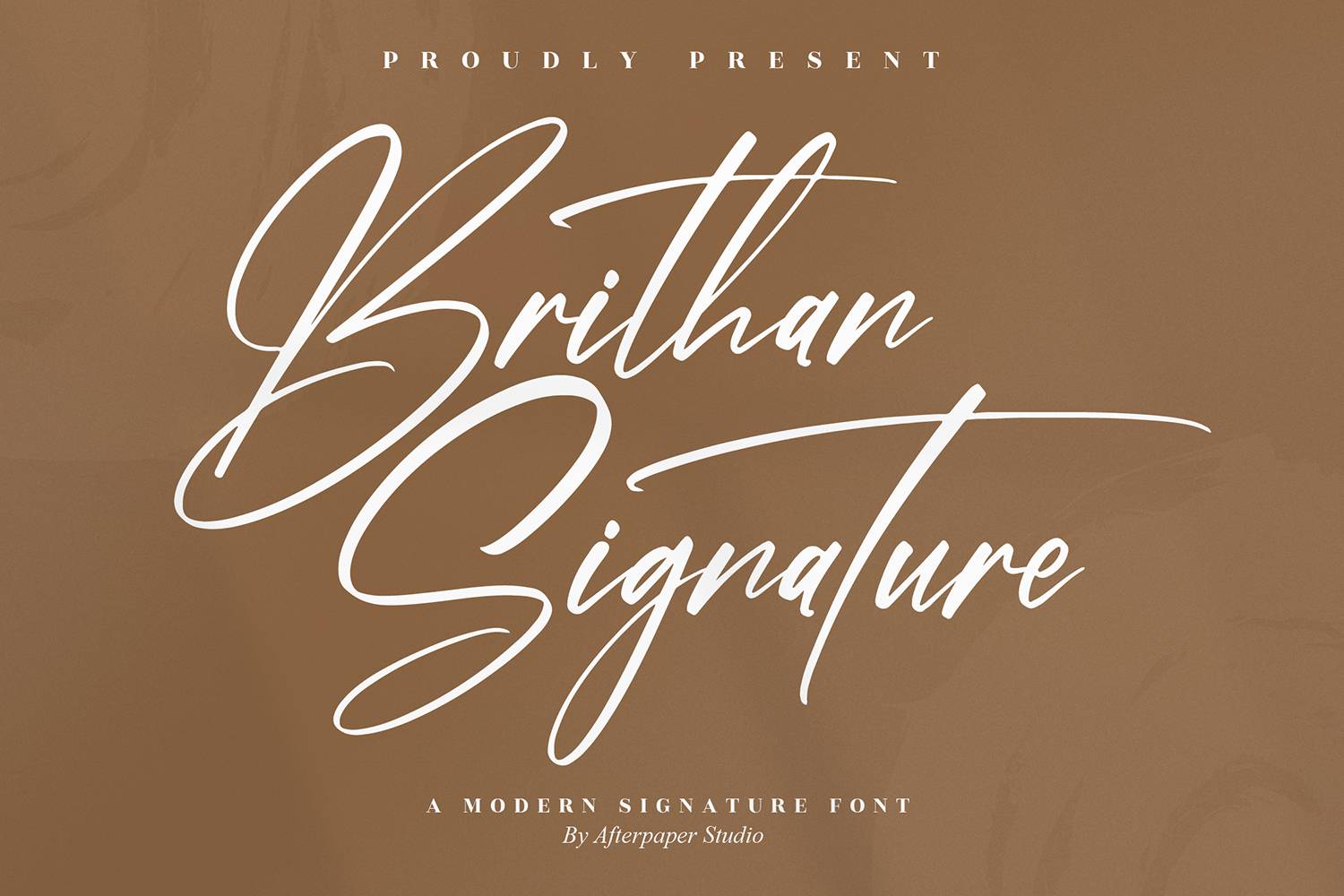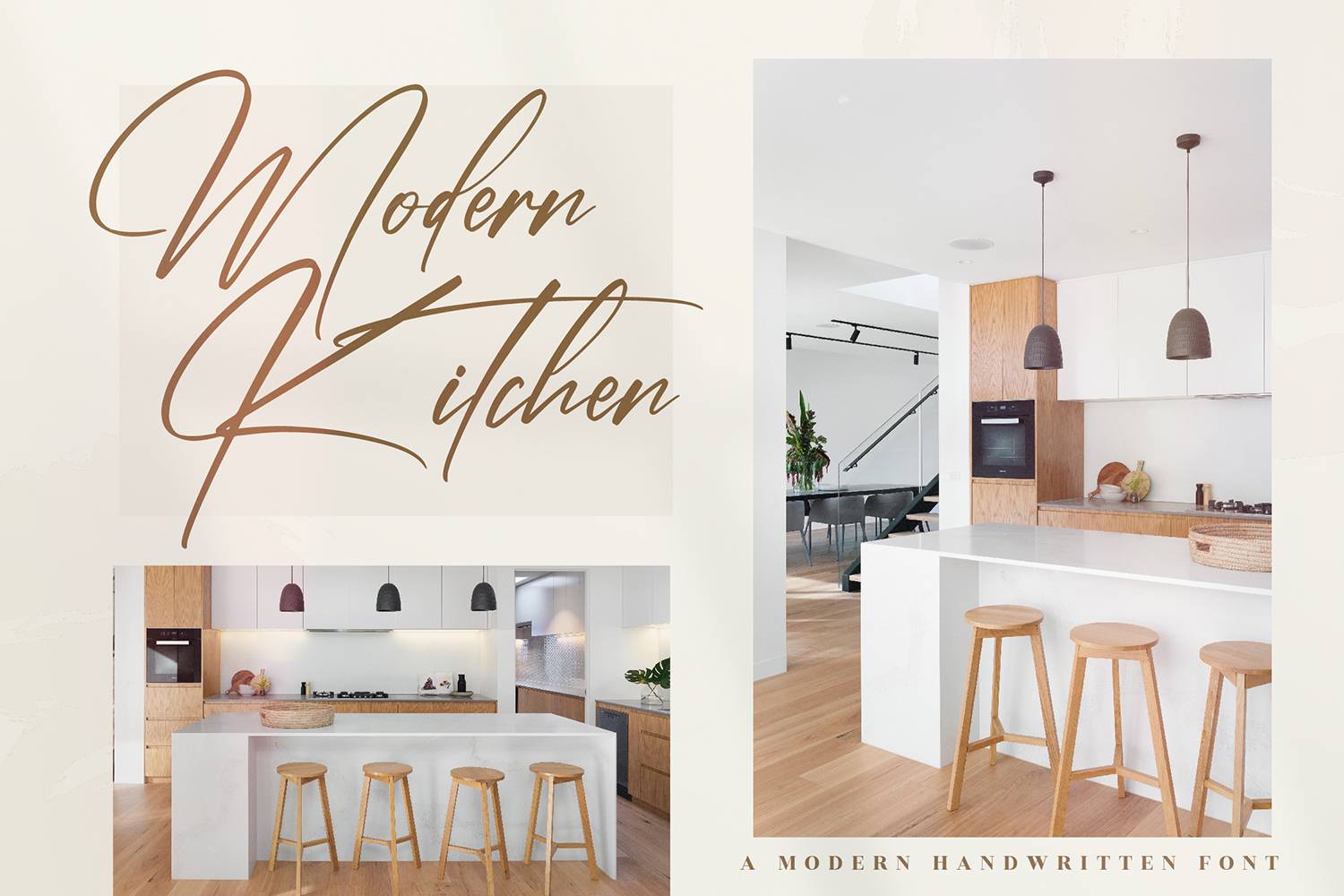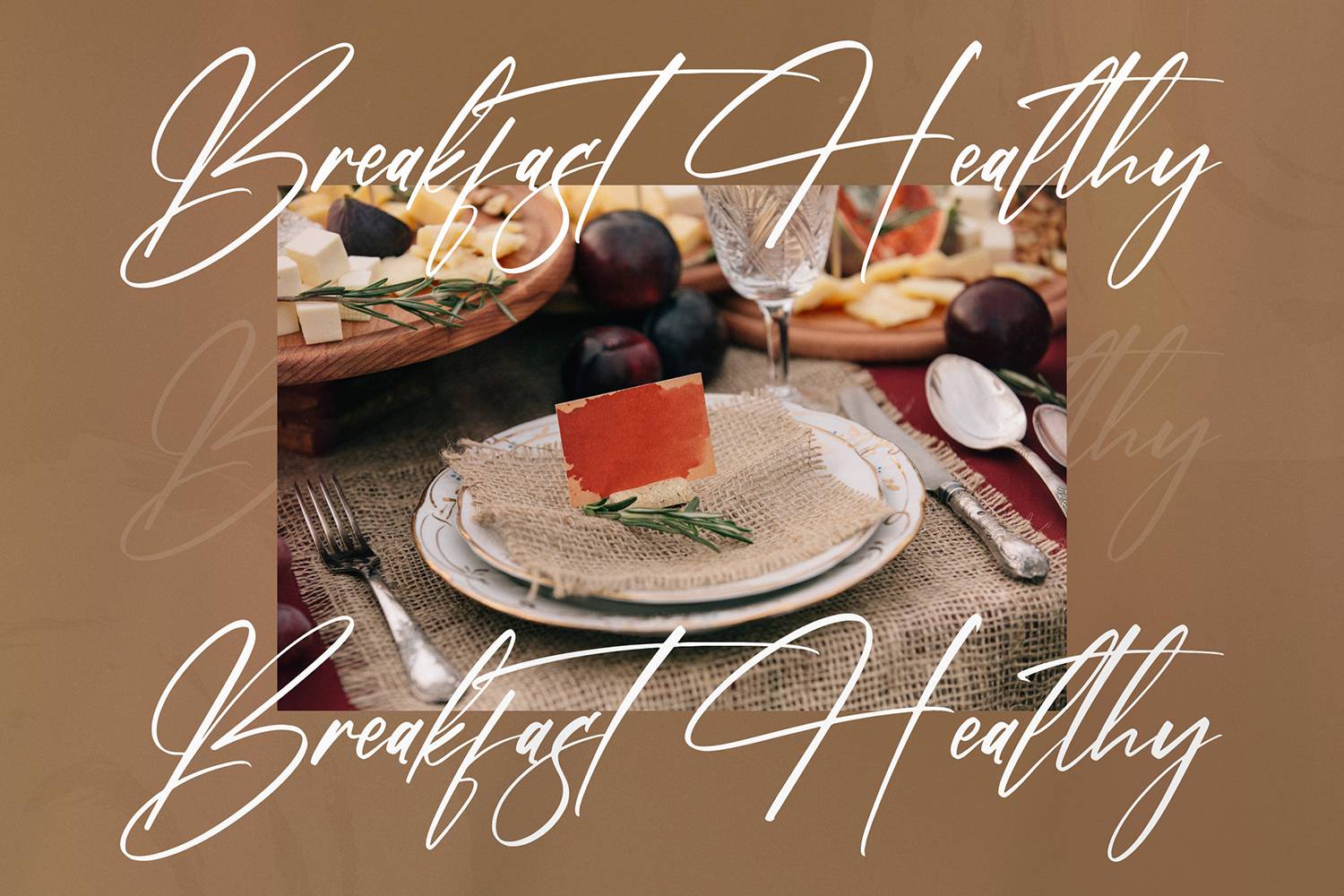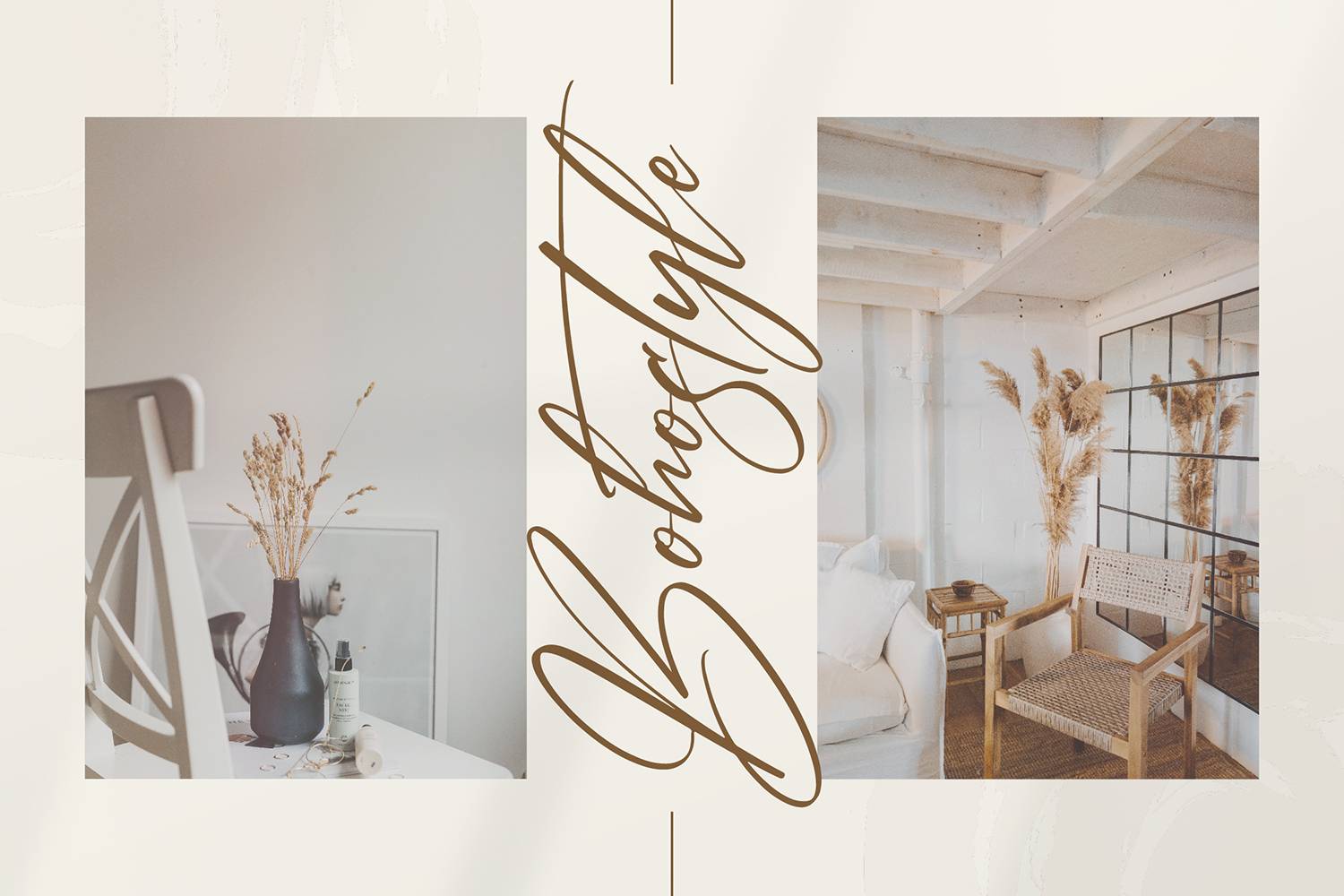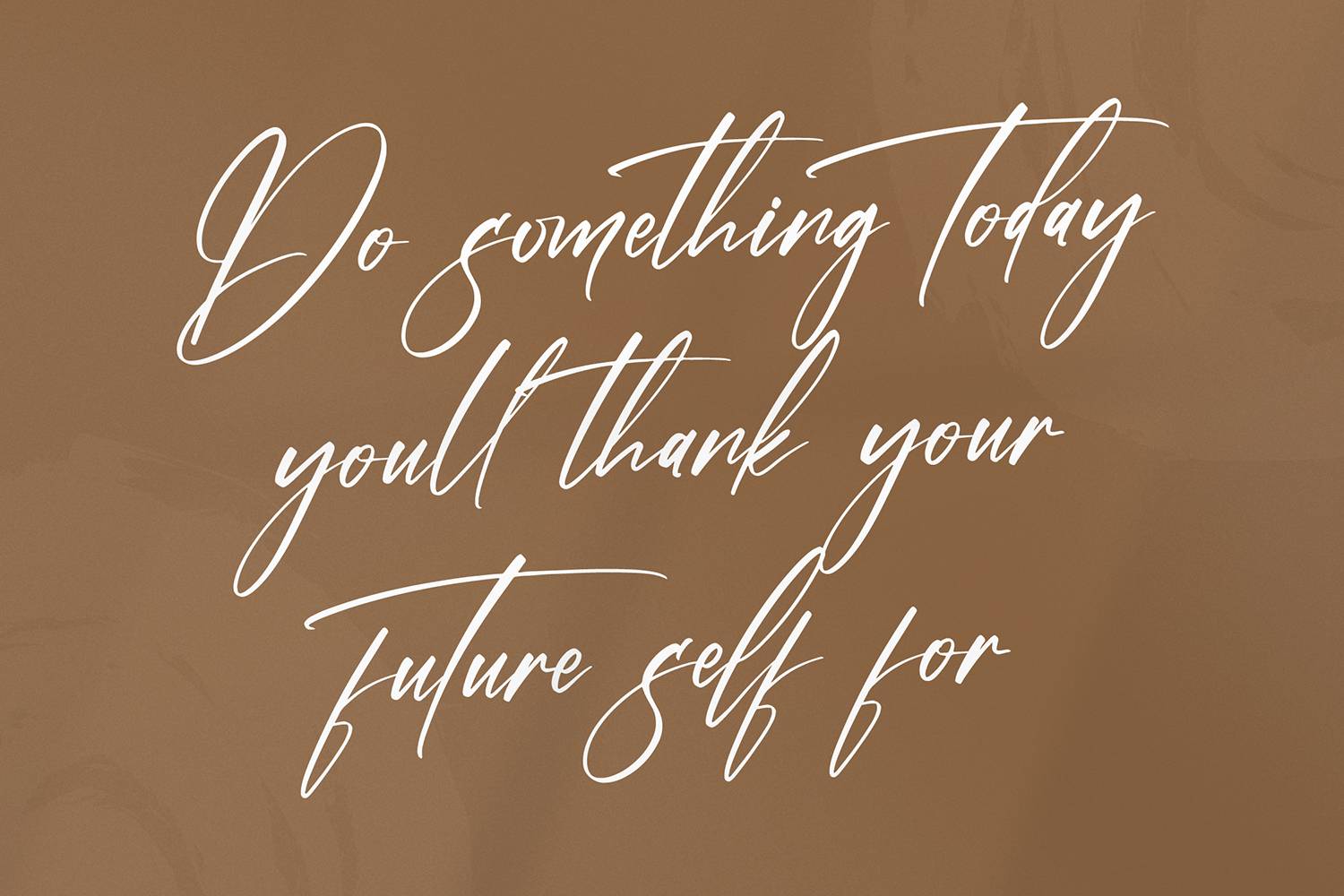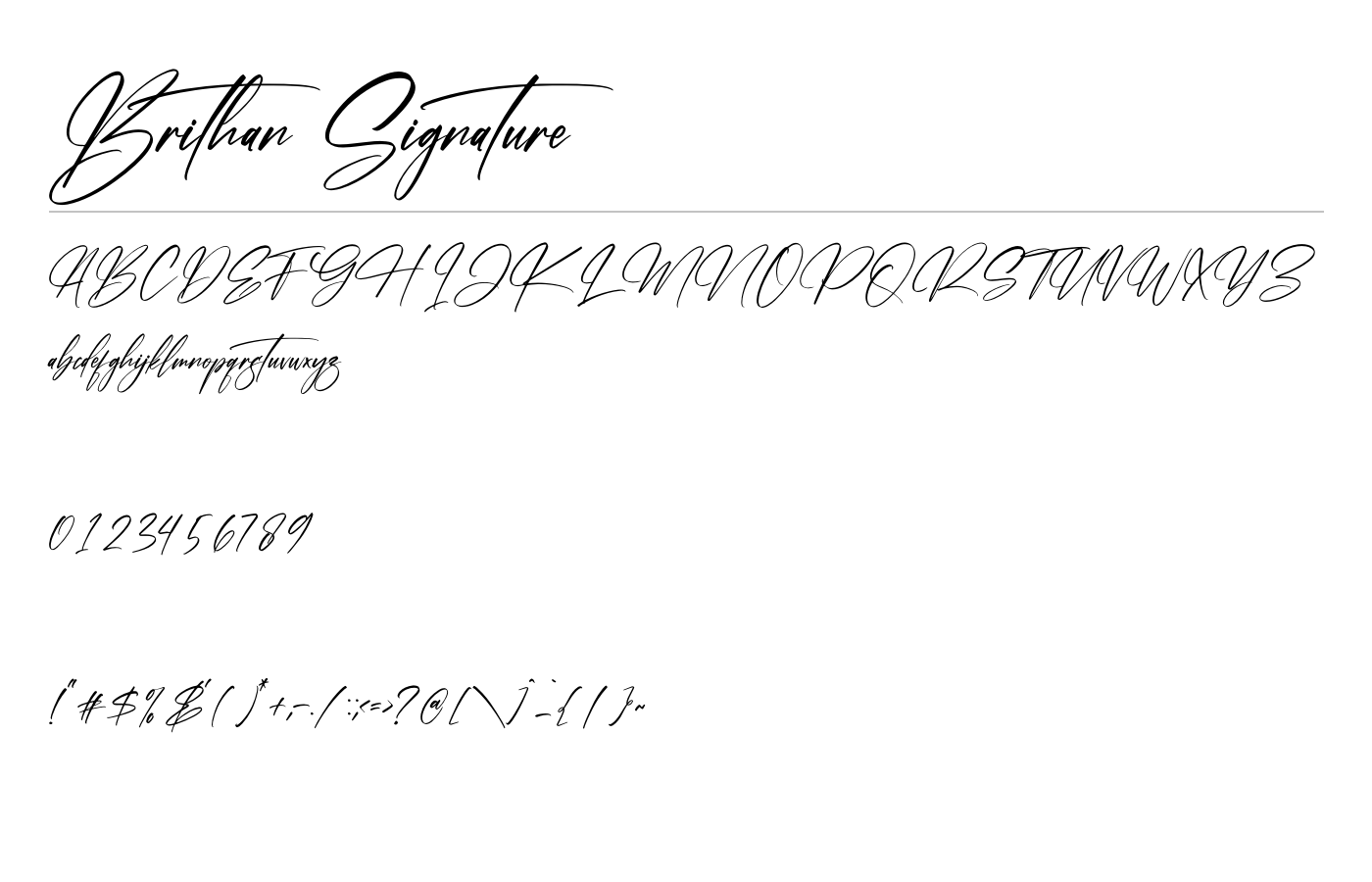
Brithan Signature is a delicate, elegant script font that mimics natural handwriting with its thin, fluid strokes and stylish flourishes. Its slender, flowing letterforms convey a sophisticated, personal touch, making it perfect for luxury branding, invitations, and logos that seek to evoke charm and refinement. This font shines best in large sizes for headlines or decorative text, bringing a graceful and artistic feel to any design.
Brithan Signature Font
About Brithan Signature Font